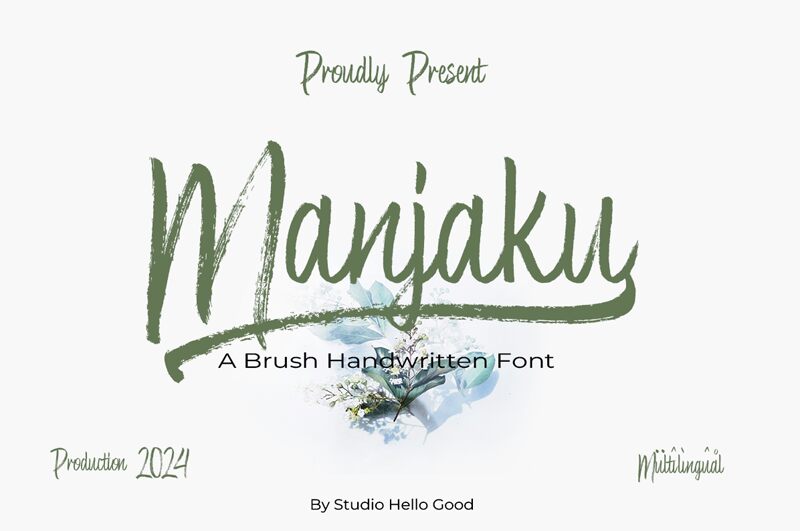
Manjaku font by Studio Hello Good is a free handwritten font with an organic flow and modern appeal. This playful font style carries with it an artistic vibe making it feel genuine and real. Thus, it communicates to readers with a welcoming message that invites them to learn more about your project.
A versatile font, Manjaku will look beautiful on invitation cards such as for weddings and parties, posters, book covers, and social media posts. Also, explore its potential in logotype creation, branding, and packaging. Of course, Manjaku can also be used for smaller projects like labels, cards, and so on.